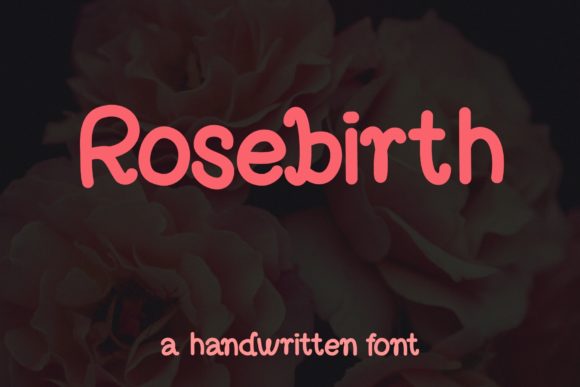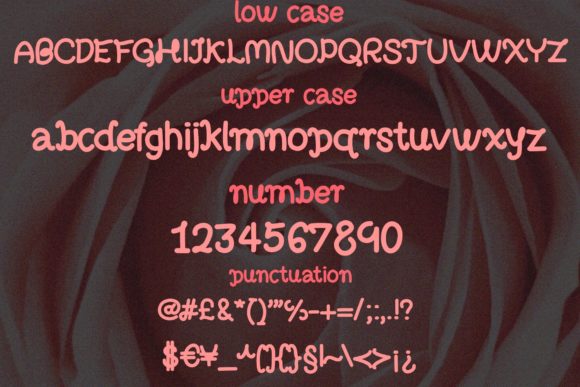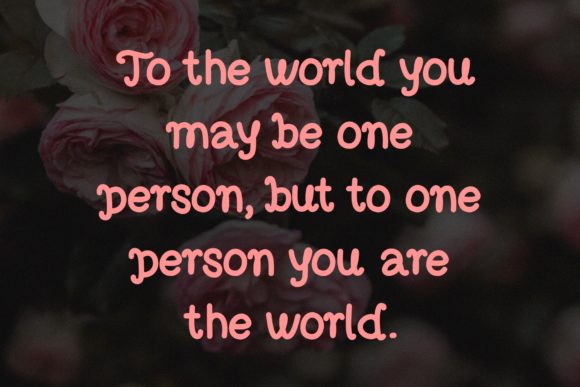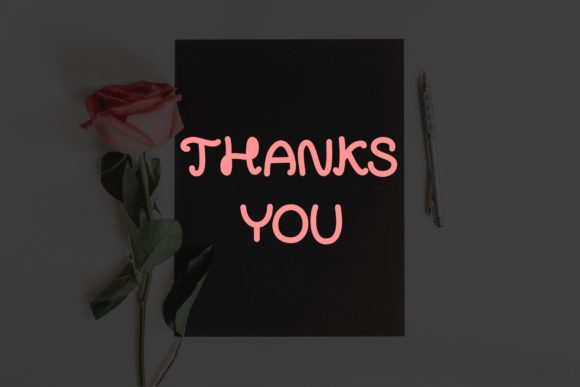
Rosebirth
About Rosebirth Font
Rosebirth is a sweet and friendly handwritten font. Its natural and unique style makes it incredibly fitting to a large pool of designs. The only limit is your imagination!